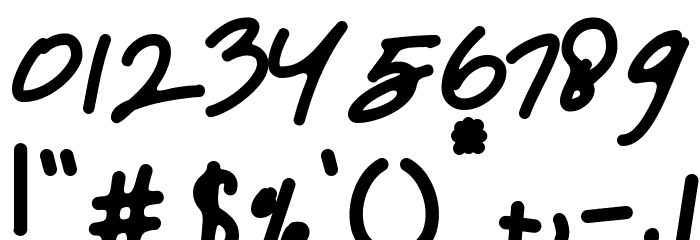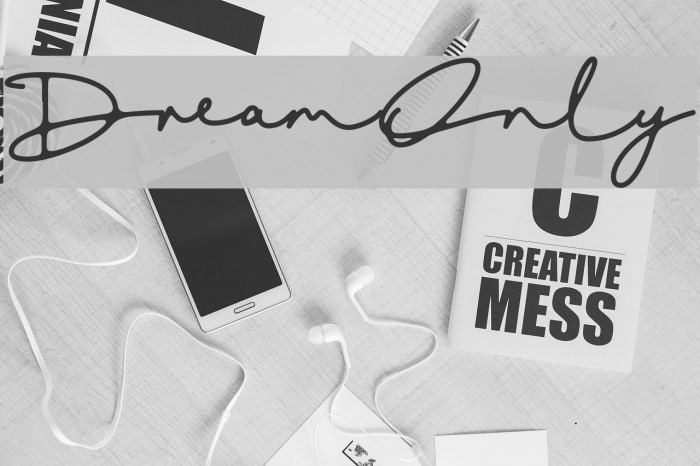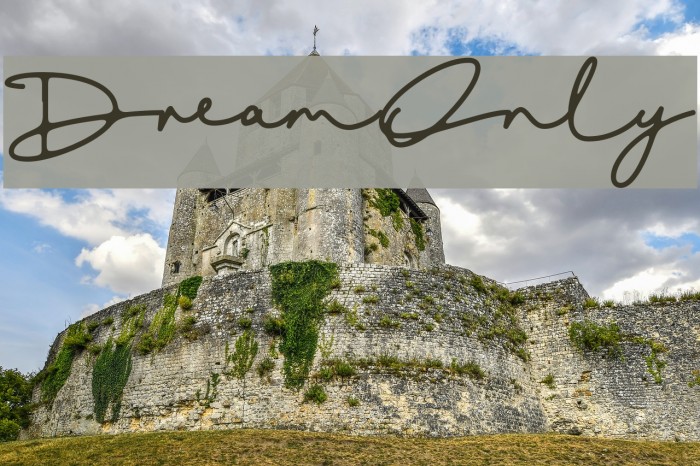
DreamOnly Font
This font exudes a casual, handwritten style with a touch of elegance, characterized by its fluid and connected letterforms. The uppercase letters maintain a consistent height, while the lowercase letters exhibit a playful variation in size, adding a dynamic rhythm to the text. The numerals are bold and slightly rounded, complementing the overall organic feel of the font. Special characters are creatively integrated, maintaining the handwritten aesthetic. The strokes are smooth and slightly varied in thickness, providing a natural and authentic look. This font is perfect for projects that require a personal touch, such as invitations, greeting cards, or branding materials that aim to convey warmth and approachability.
A casual, elegant handwritten font with fluid, connected letterforms and dynamic rhythm.
- Proposed Projects: Ideal for invitations, greeting cards, personal branding, and any project needing a warm, approachable feel.
- Overall Style: Casual, Elegant
- Use Case: Logos, Invitations, Greeting Cards